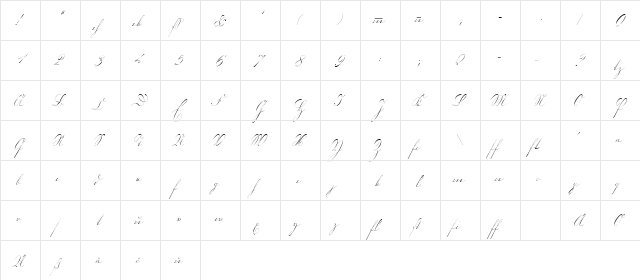
Kurrent Kupferstich Regular
Design Context for Kurrent Kupferstich Typeface
Kurrent Kupferstich takes a measured approach to typography — its balanced proportions and neutral character make it a reliable workhorse for both digital and print work.